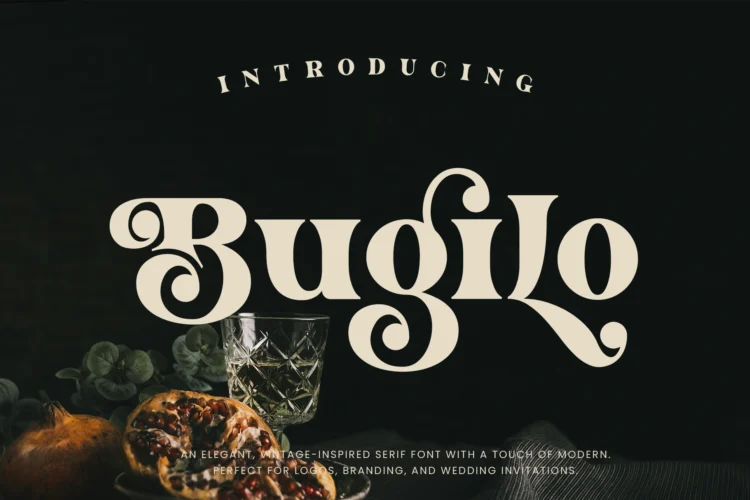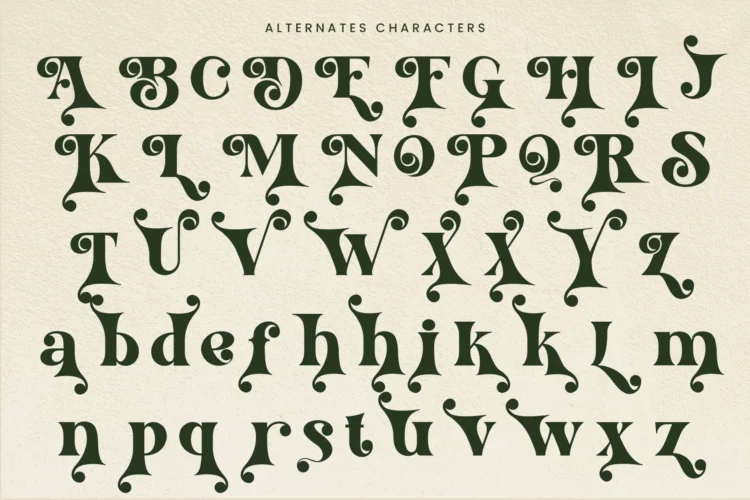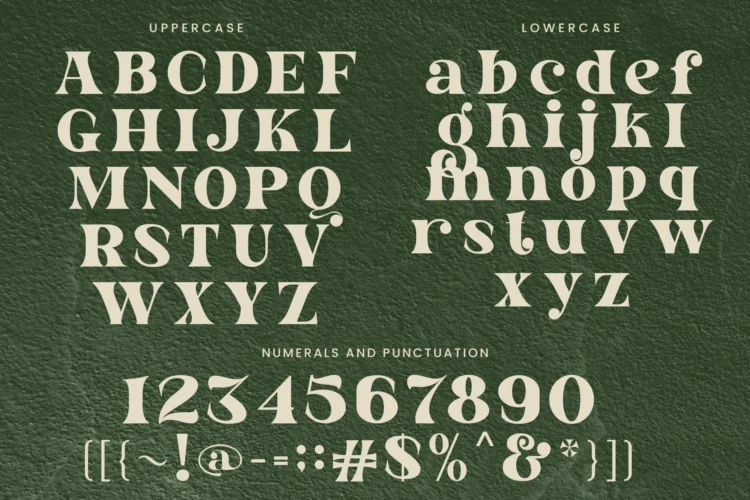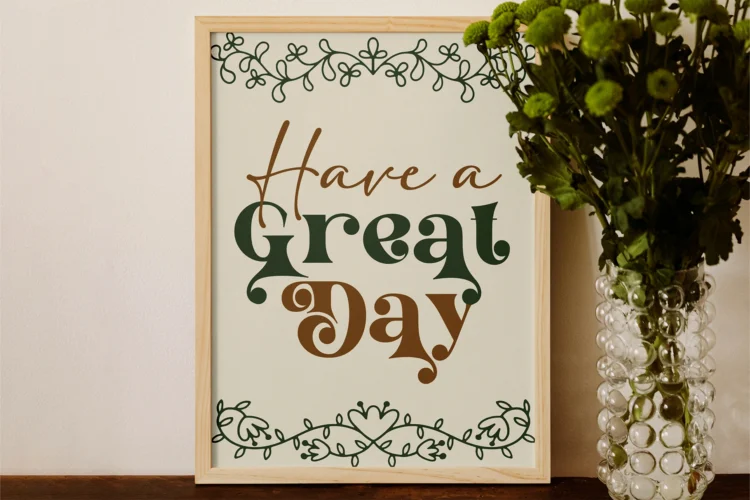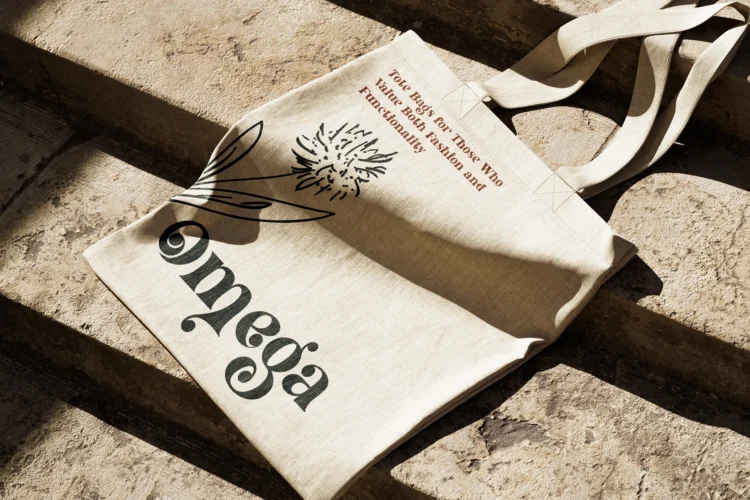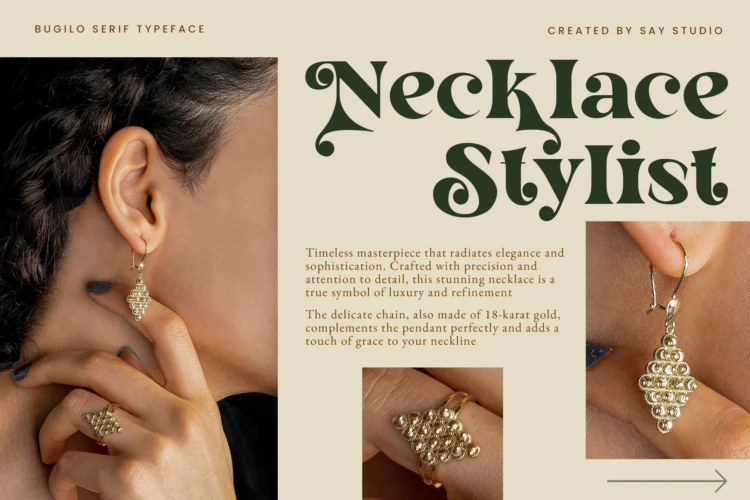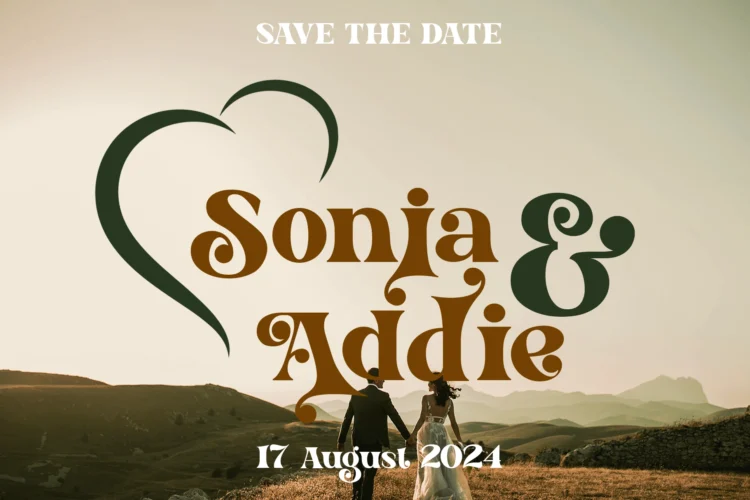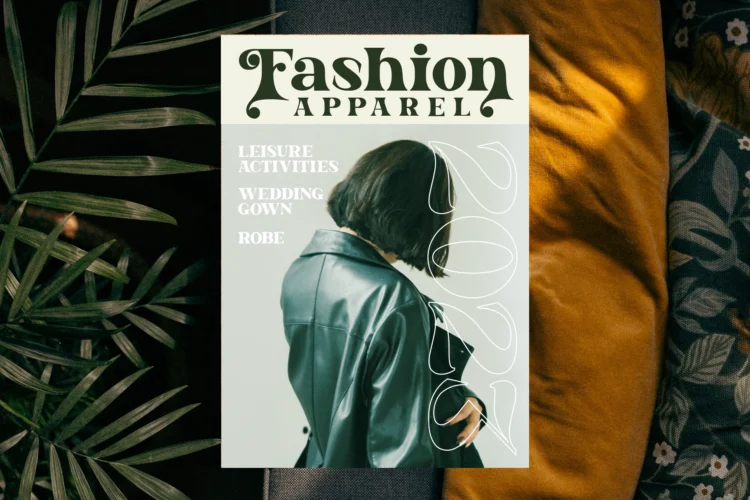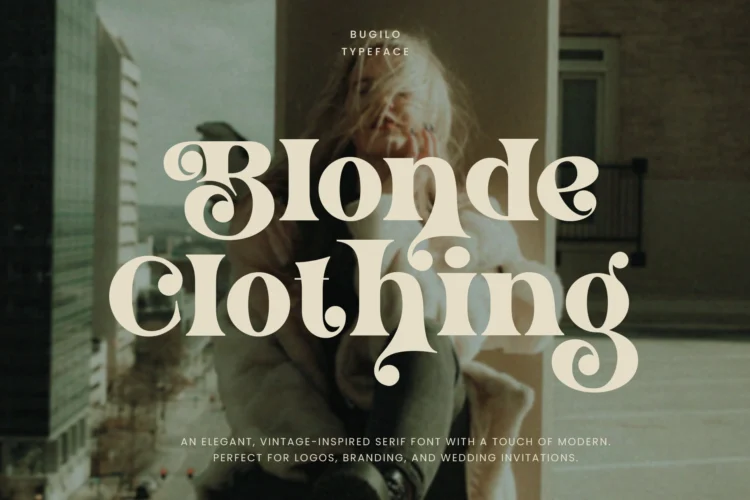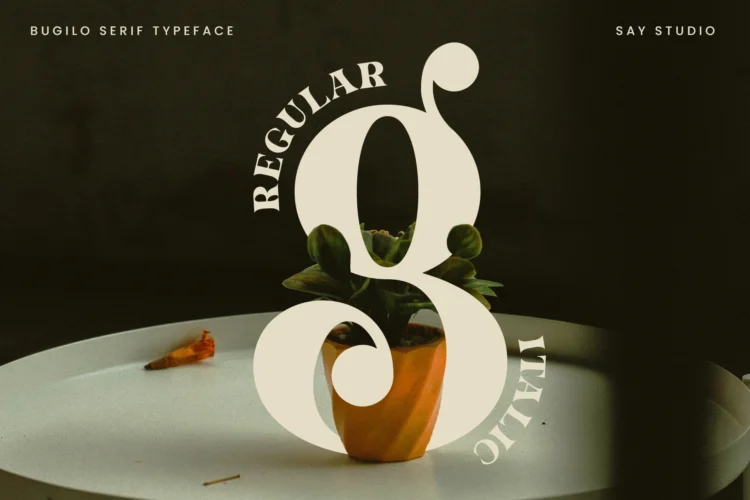
Bugilo feels playfully nostalgic and delivers an incredible vintage aesthetic. Use this serif font to add that special retro touch to any design idea you can think of! Bugilo Comes with alternatives , helps to create stunning logos, quotes, posts, blog posts. branding projects, magazine imagery, wedding invitations, and much more. Masterfully designed to become a true favorite, this font has the potential to bring each of your creative ideas to the highest level!